Beyond Univers and Avenir:
Akira Kobayashi reminisces on Adrian Frutiger
Japanese type designer and 2022 Type Directors Club Medalist Akira Kobayashi has a robust, more than a 39-year long career: he contributed deeply to bridging the Eastern and Western typographic worlds, created over 50 Latin type families, and now works with Monotype as their Creative Type Director.
In 2003 he had a chance to work shoulder to shoulder with another titan and the TDC medalist of 1987—Adrian Frutiger. They met when Akira had joined Linotype and worked on Avenir Next, a remake of Adrian’s renowned Avenir typeface.
For Kobayashi, the collaborative project with Frutiger meant more than a simple re-edition of his classic typeface, as once his book drastically changed the young designer’s life and he finally got the chance to express his gratitude. In the text, Akira reveals moments he shared with the outstanding figure and opens up a bit about joint work with another prominent designer and TDC Medalist, Hermann Zapf.
Adrian Frutiger
(1928–2015)
Swiss typeface designer, who created dozens of notable typefaces with Univers, Frutiger and Avenir being the gems, lettering systems for Paris Métro and Paris Orly Airport, and signage systems for Charles de Gaulle Airport and the Centre Georges Pompidou.
Be your hardest critic
Adrian Frutiger always explained the most important aspects of type design in simple and plain words. He once said, “The whole point with type is for you not to be aware it is there. If you remember the shape of a spoon with which you just ate some soup, then the spoon had a poor shape.”
I also preach this idea: type has to function without being noticed, it relates to aesthetics.
So when it comes to type design, I try to be the harshest critic of my work. I look at my type samples from a distance, print some words, and scrutinize them upside-down and from the back. Sitting beside Frutiger and watching how he inspected the type proof, I realized that what he was doing was exactly the same thing.
Neue Frutiger typeface in use at Kanazawa bullet train station. Photo by Akira Kobayashi.
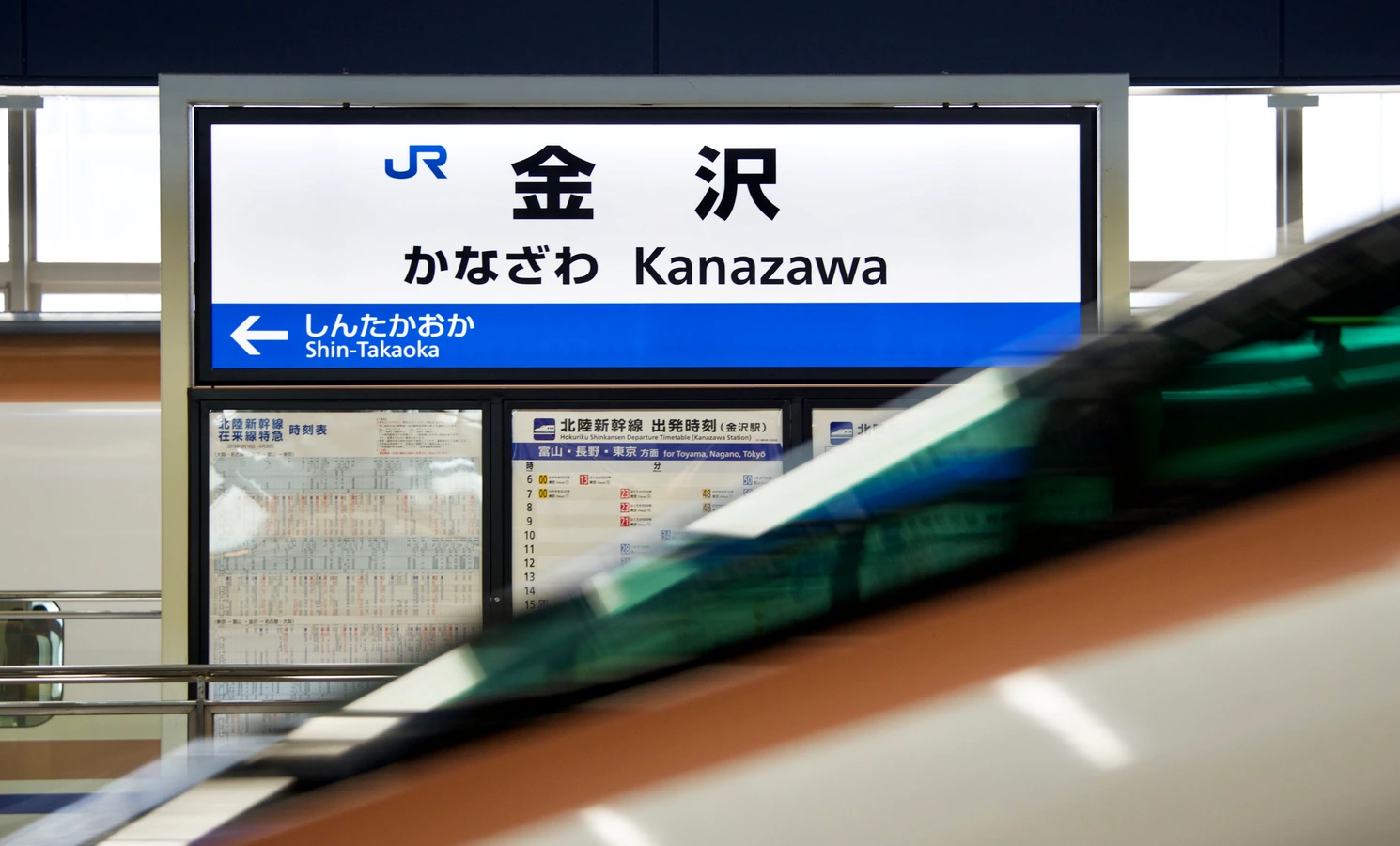
Creativity standing on passion
This photo was taken by my colleague from Linotype in Adrian Frutiger’s atelier while we were working on Avenir Next. It shows Adrian drawing oldstyle figures with the red pen I used to mark up corrections on the printouts. At that moment, I was about to propose adding oldstyle figures to the family, and planned to explain to him the OpenType format and possible typographic variations it suggested. But Frutiger immediately started drawing figures on his own. I didn’t need to convince him and had no time to offer a more suitable pen. It seemed that OpenType technology was created to catch up with his ideas.